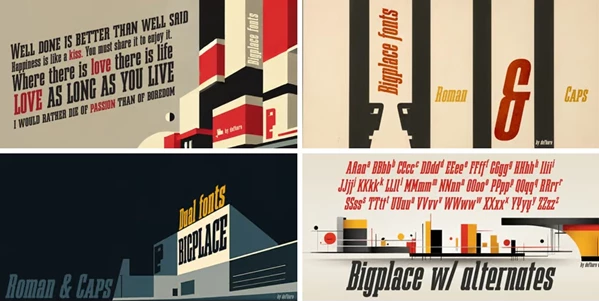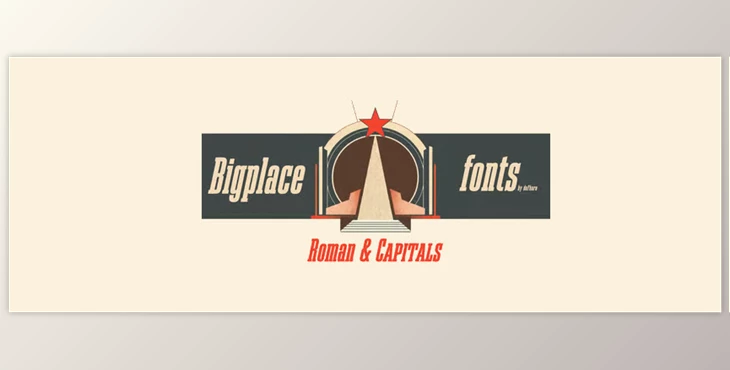
Bigplace is a stunning typeface with an ultra-compressed form and an attention grabbing visual impact of Extra Bold style. It combines the strong stature of Slab Serif and the vigorous flow of its stroke oblique which commands movement, resulting in a powerful and energetic typeface. Bigplace takes cues from the Bauhaus and Soviet Constructivism movements, embodying the functional grace and spirit of these iconic design periods, which adds to the value of modern graphic and editorial design.
- Two Variants Per Style: Roman version has an upper and lower case balance while the Capitals version features capital letters of different sizes into imaginative and stunning arrangements.
- Extra Condensed And Extra Bold Proportions: Design and space limitation prescription will optimally drive visual attention to narrow horizontal spaces.
- Slab serif oblique style: This style enhances forward motion without losing any strength at a tilt of twelve degrees.
- Advanced Open Type Technology: Provides ample font diversity with additional letters and numbers, dynamic fractions for numerical pieces, and elegant caps for precise text edges.